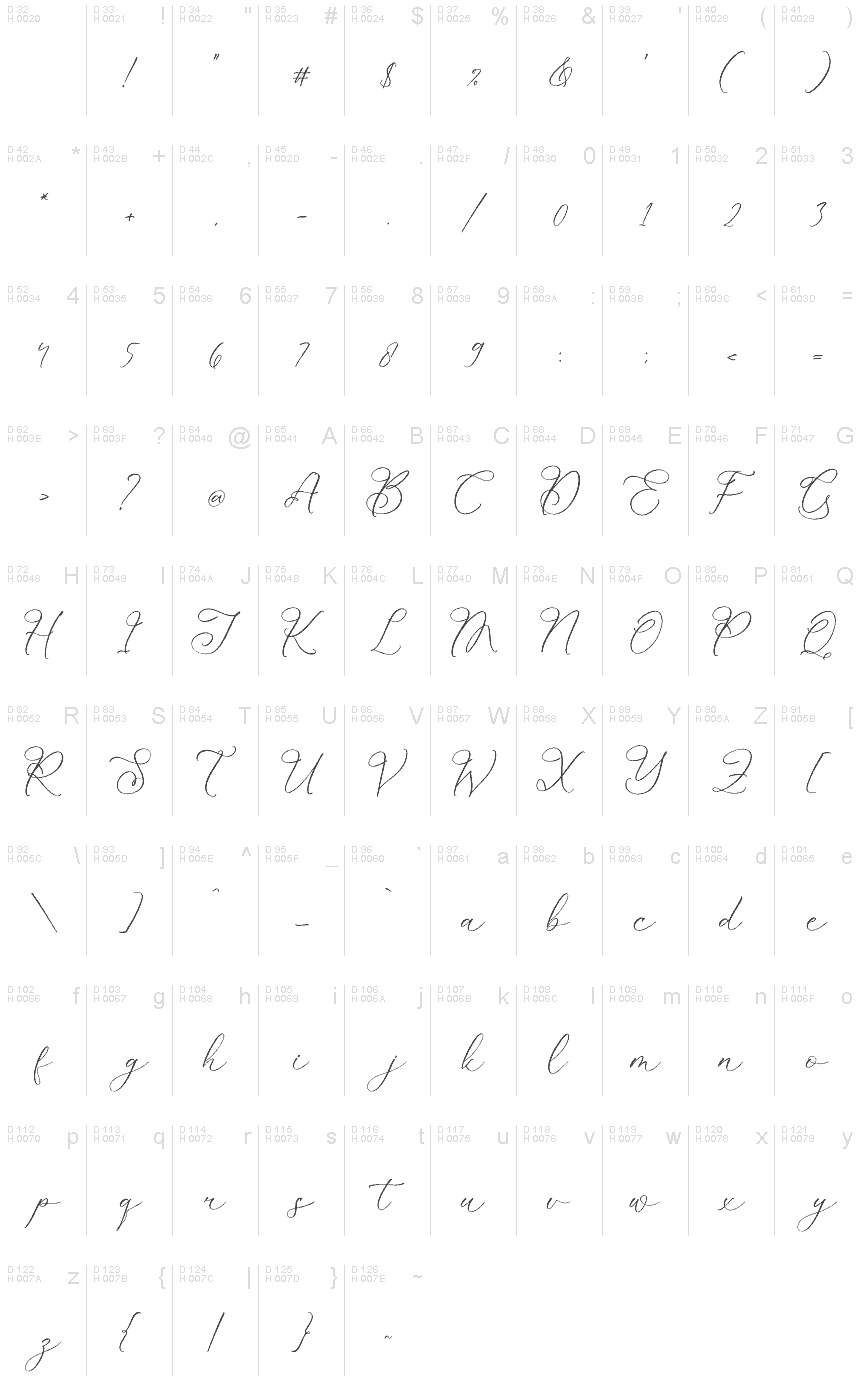
Kelarhisa Sokrate
Kelarhisa Sokrate font is a light handwritten font from Storytype Studio with smooth flowing letters. It has organic movements that make it appear in an elegant and graceful form. Its cursive script presentation brings a personal touch and still maintains its vintage charm. Overall, this romantic-feel font can be used to give style to any writing or design.
This free handwritten font supports plenty of uses such as poster designs, apparel printing, advertising, branding projects, signage design, magazine/ book covers, business cards creation and so much more! It’s also perfect for invitations and wedding designs with only your imagination limiting you.